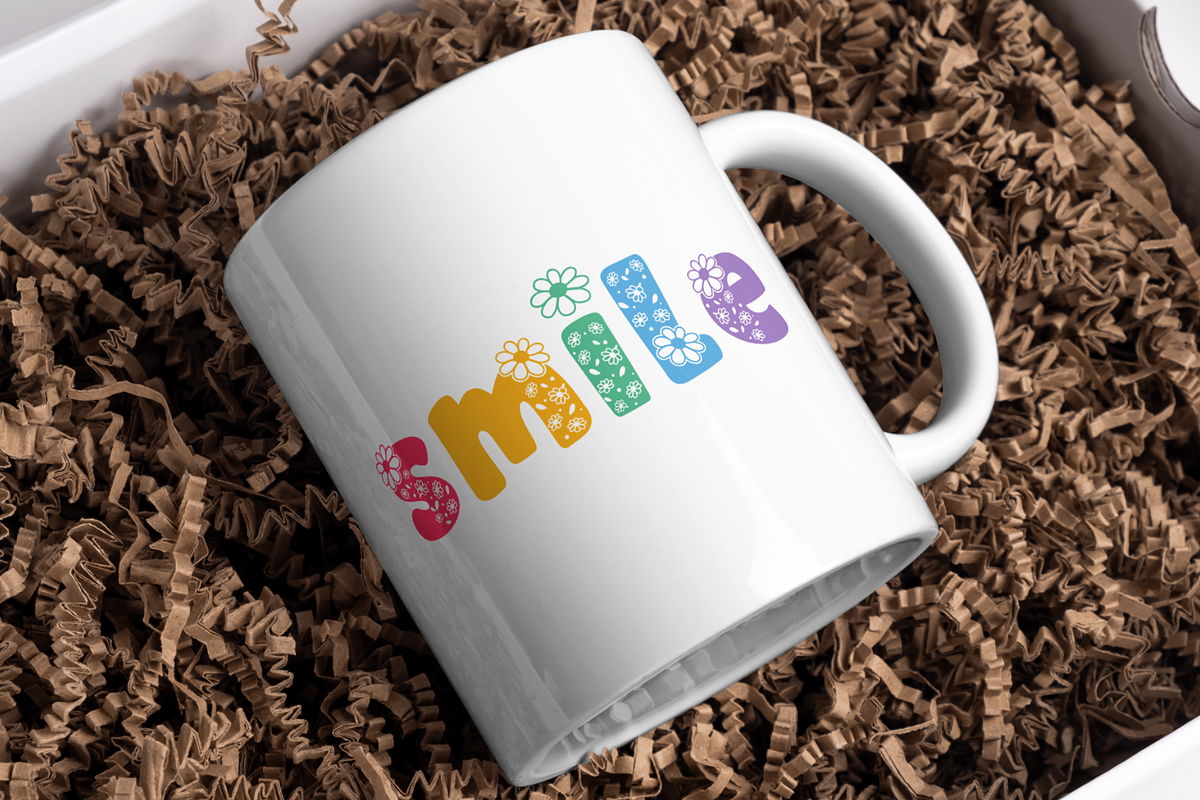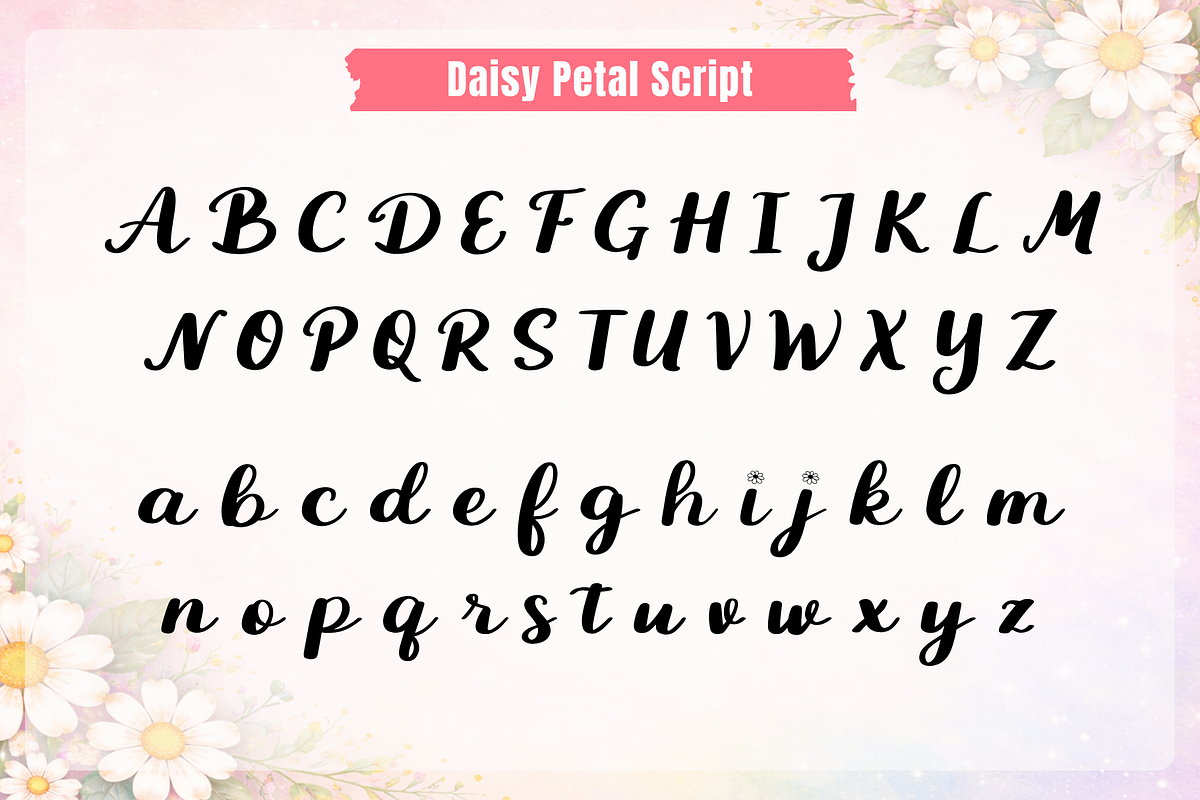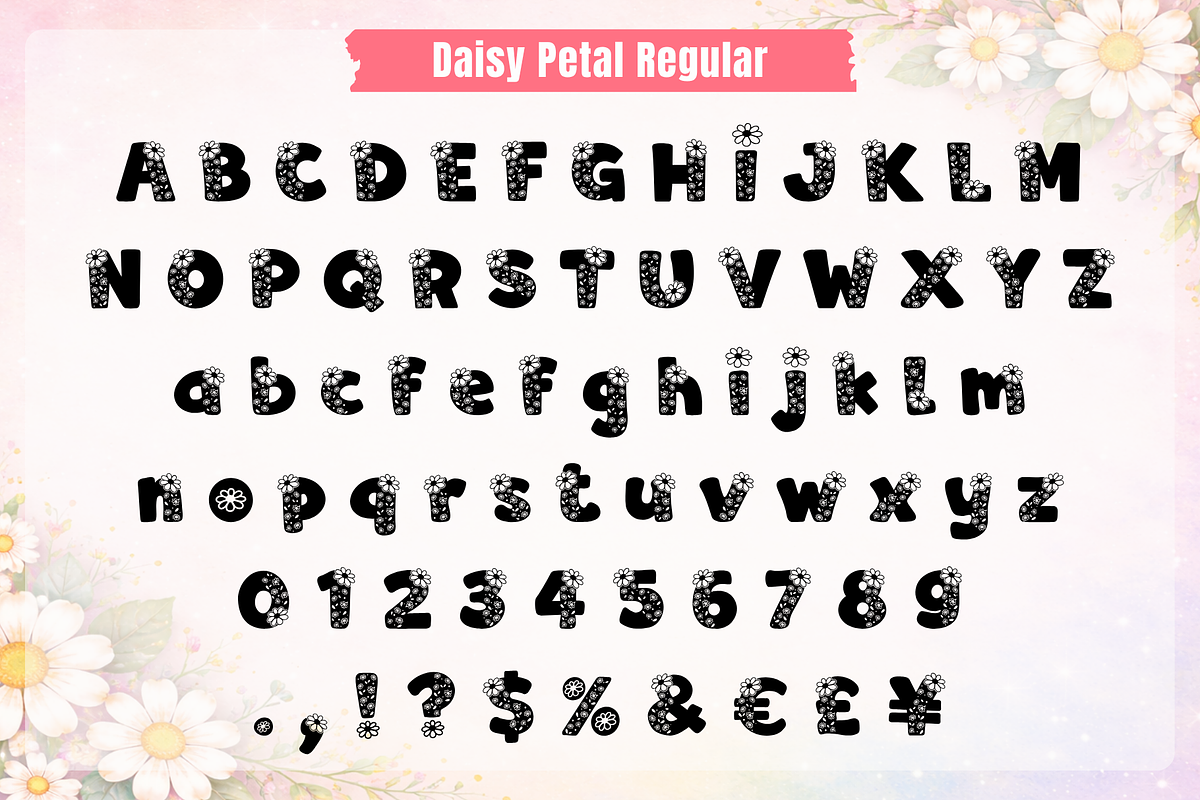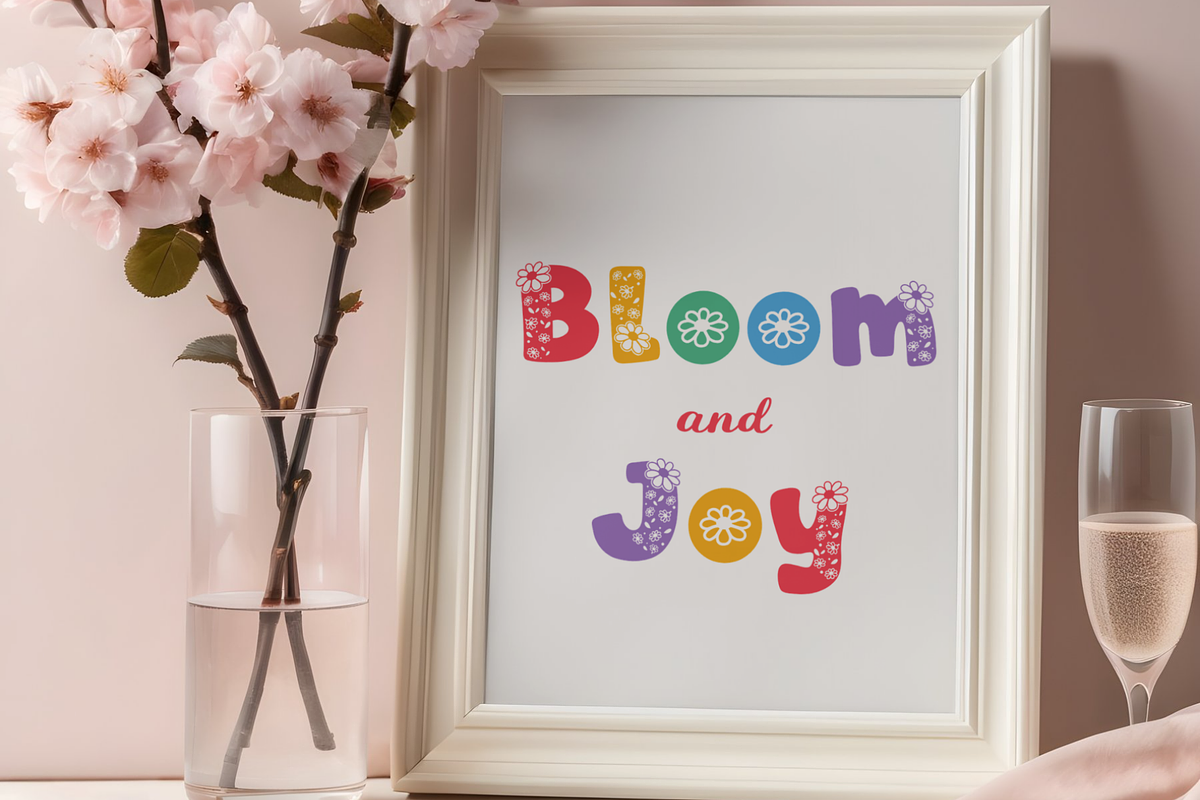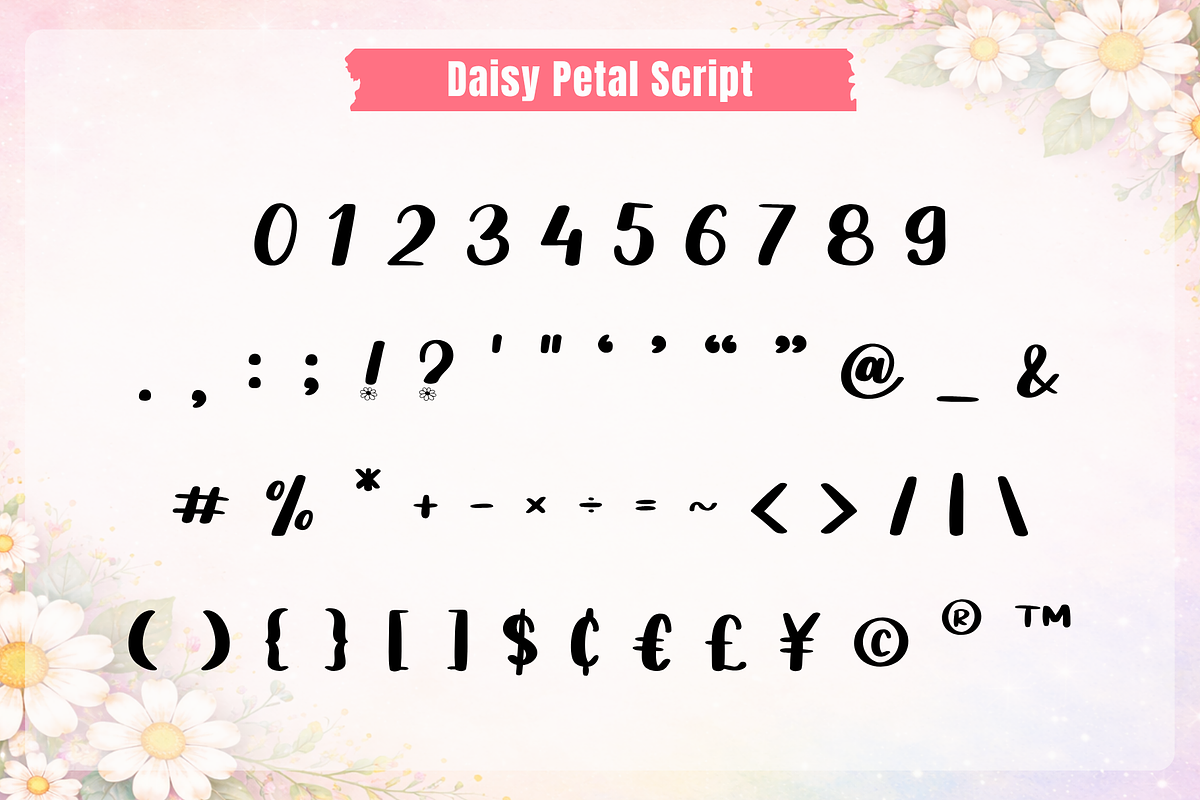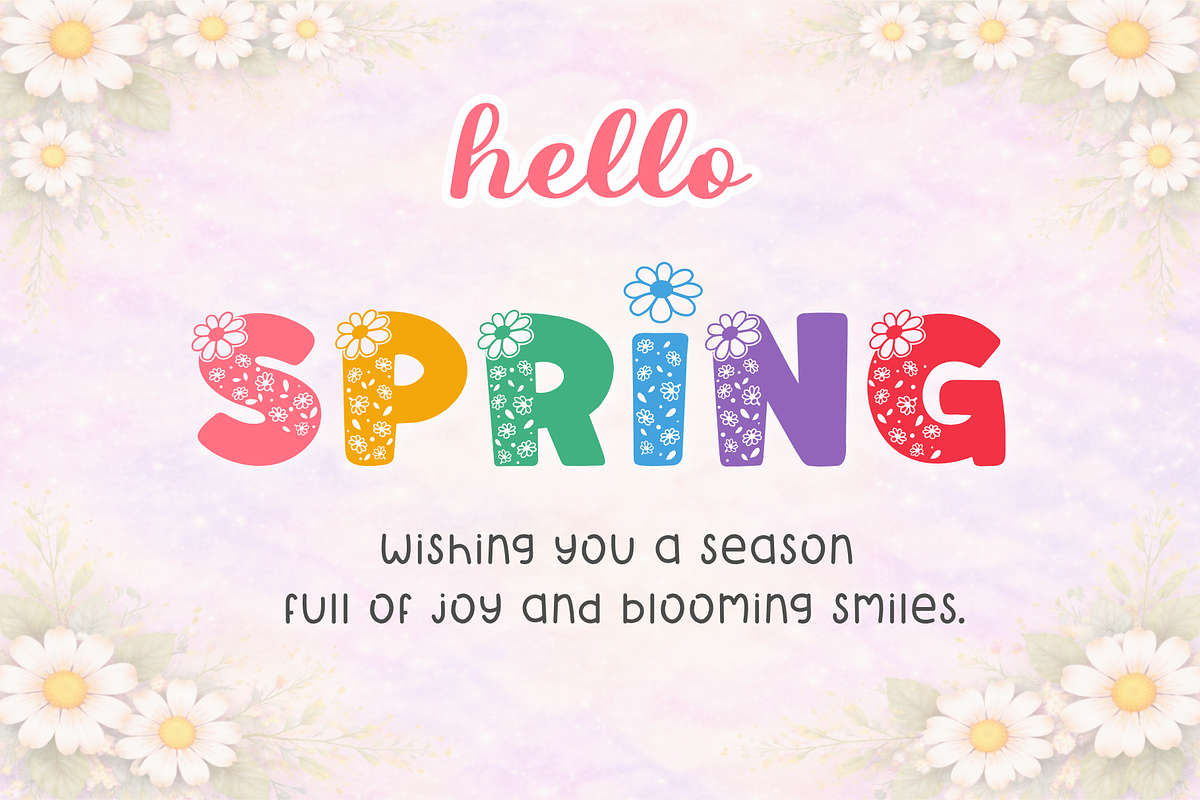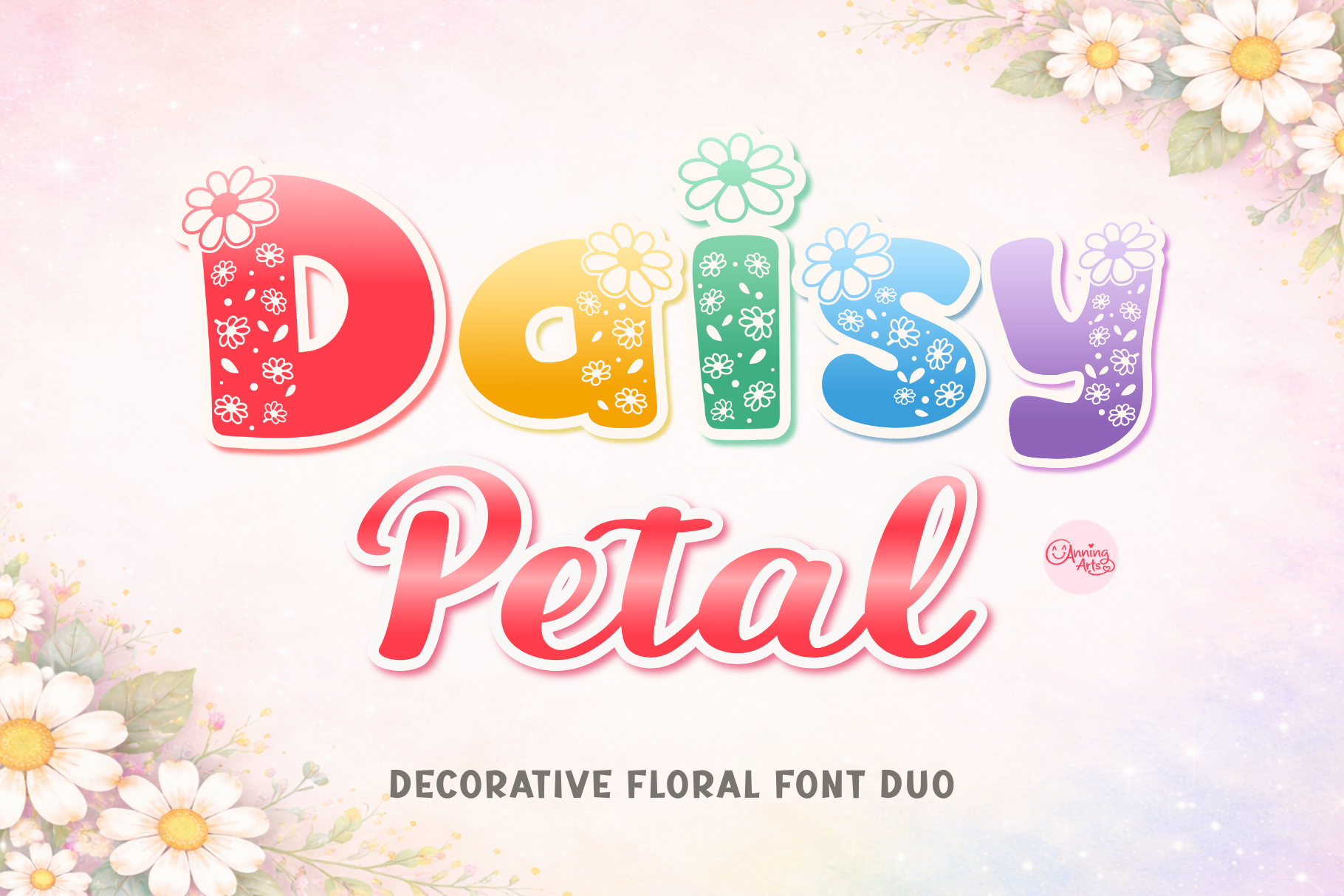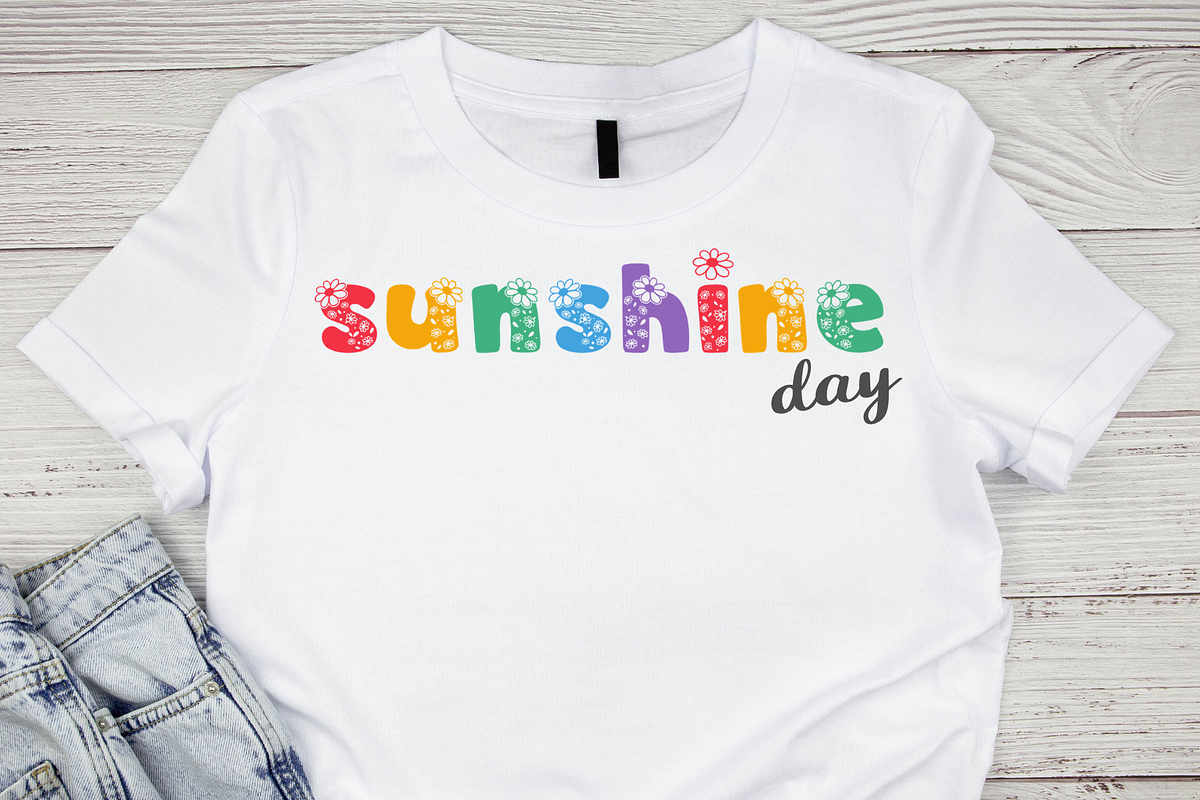
Daisy Petal - Floral Font Duo
Daisy Petal Font Duo is a charming floral font combination featuring a playful decorative font filled with cute daisy elements, paired with a smooth and elegant script.
This font is perfect for adding a soft, cheerful spring vibe to your designs.
With its fun decorative style and easy-to-read script, this font duo helps you create beautiful quotes, logos, and eye-catching designs effortlessly 🌼